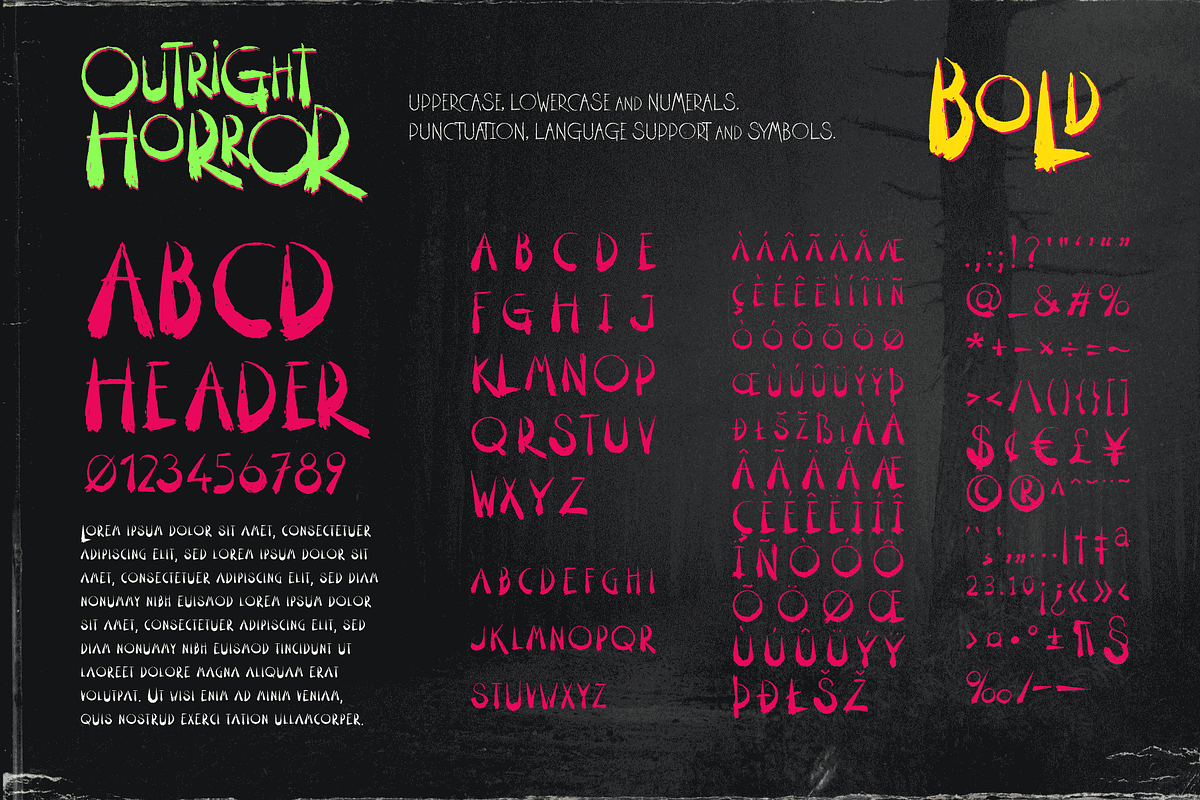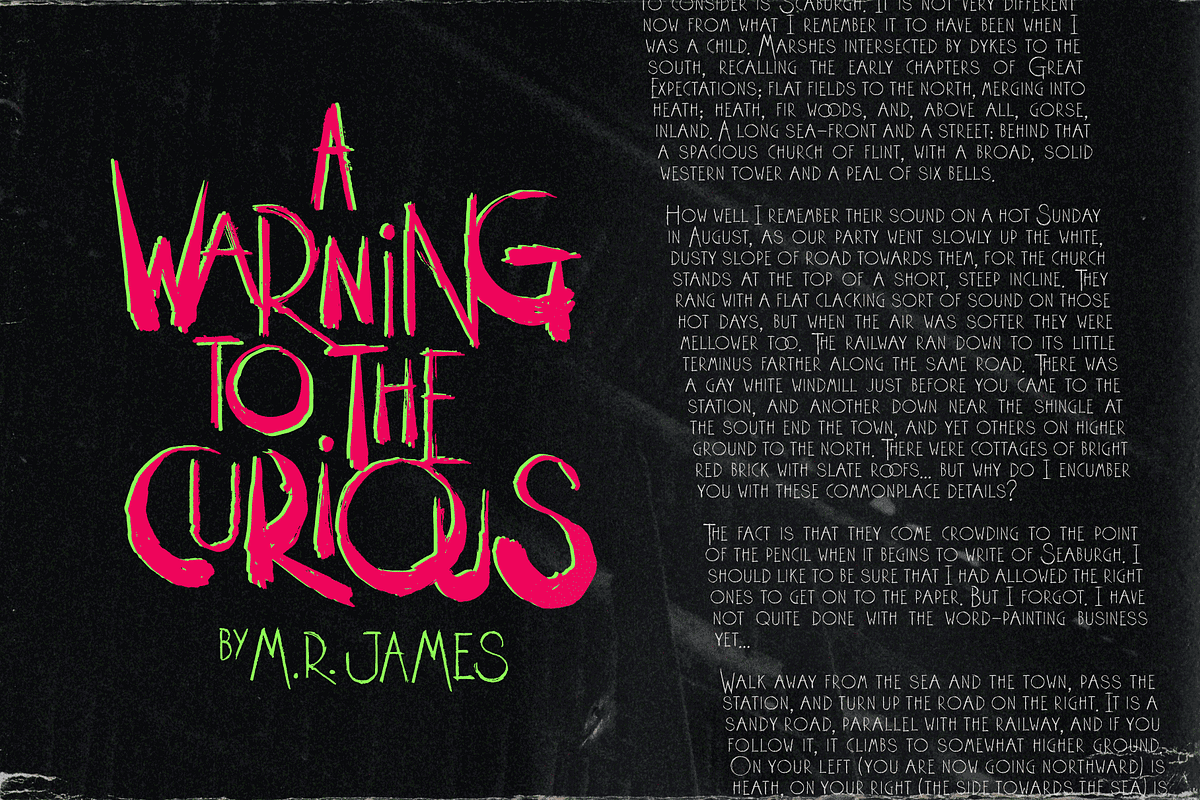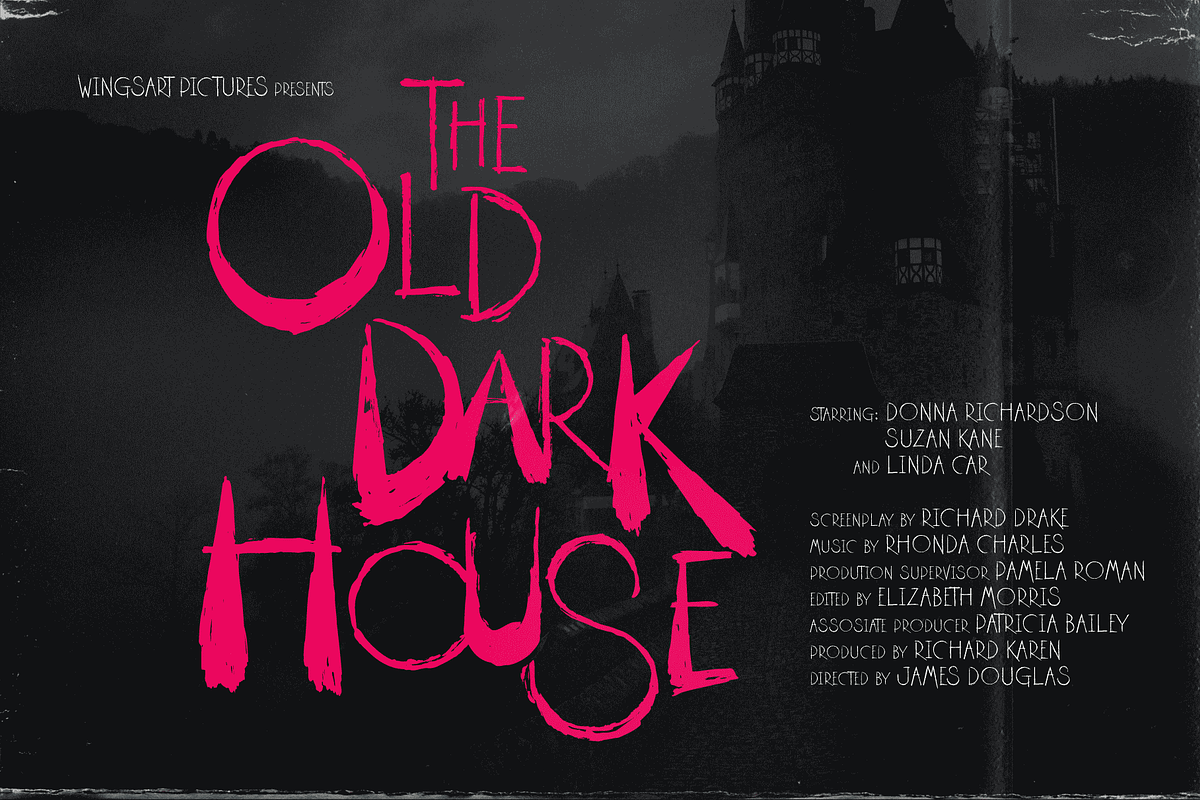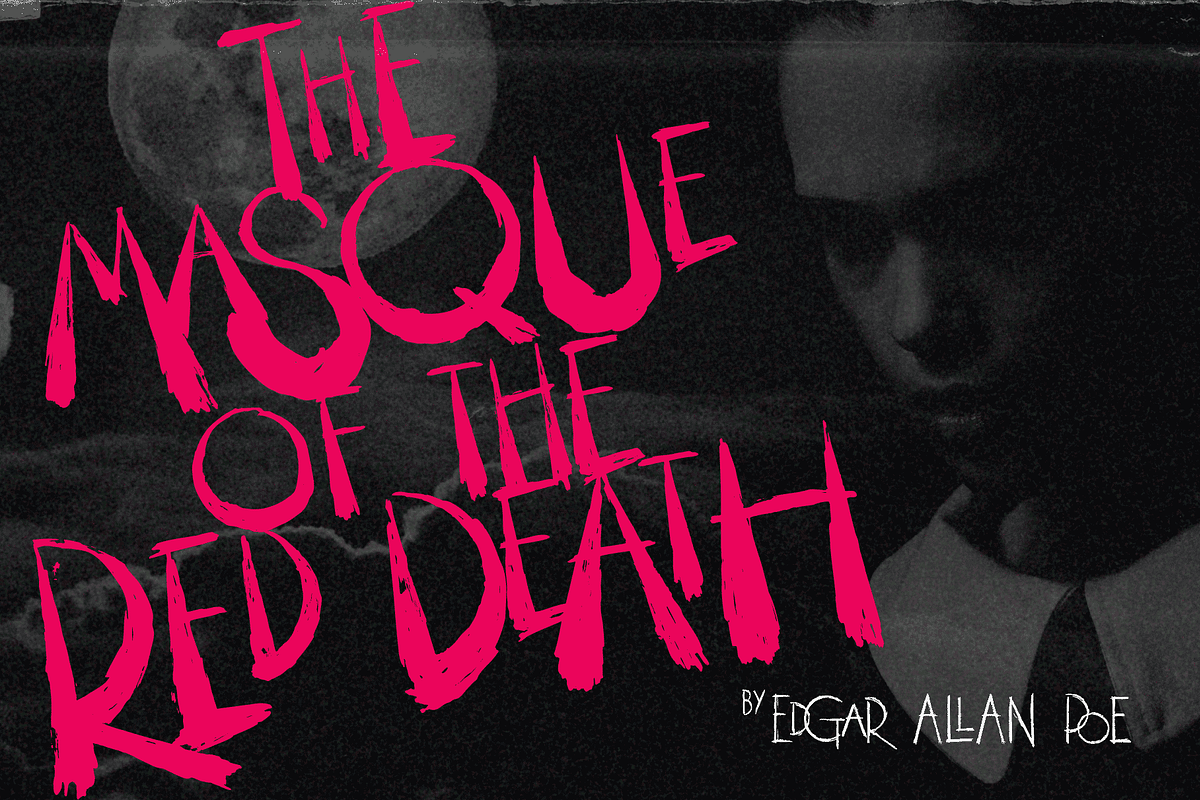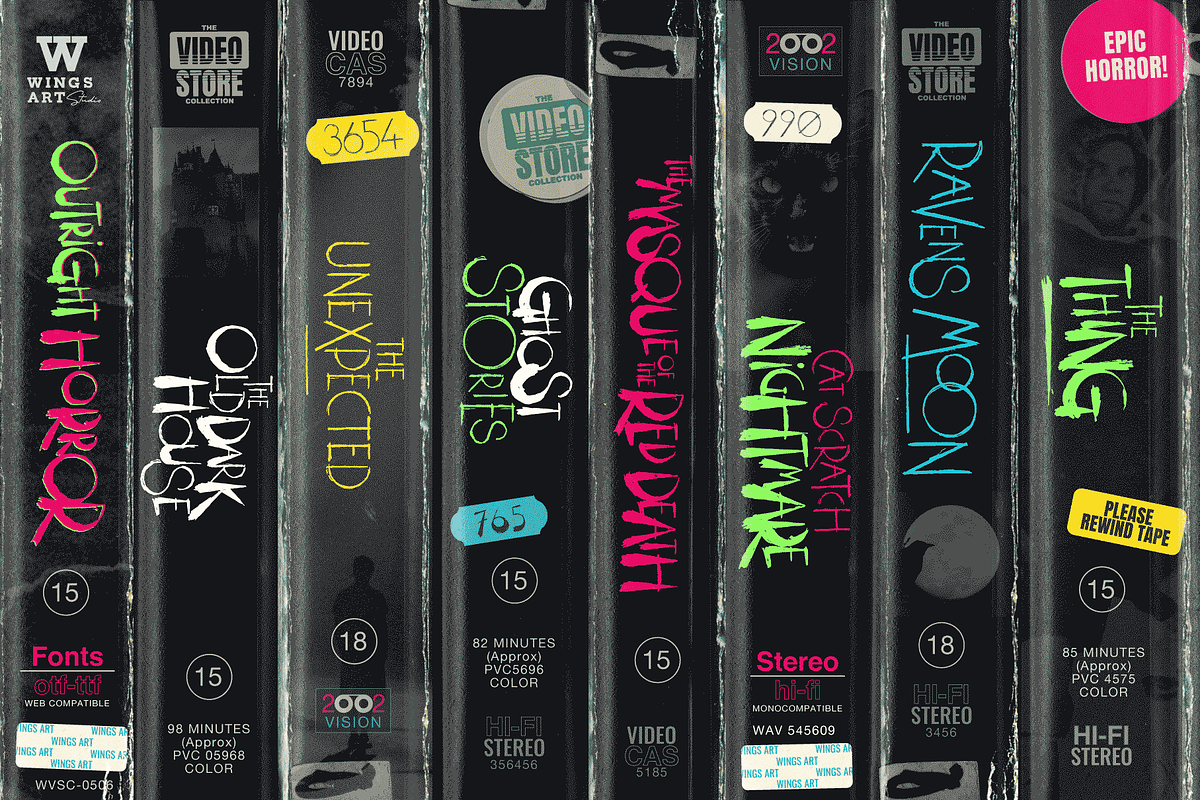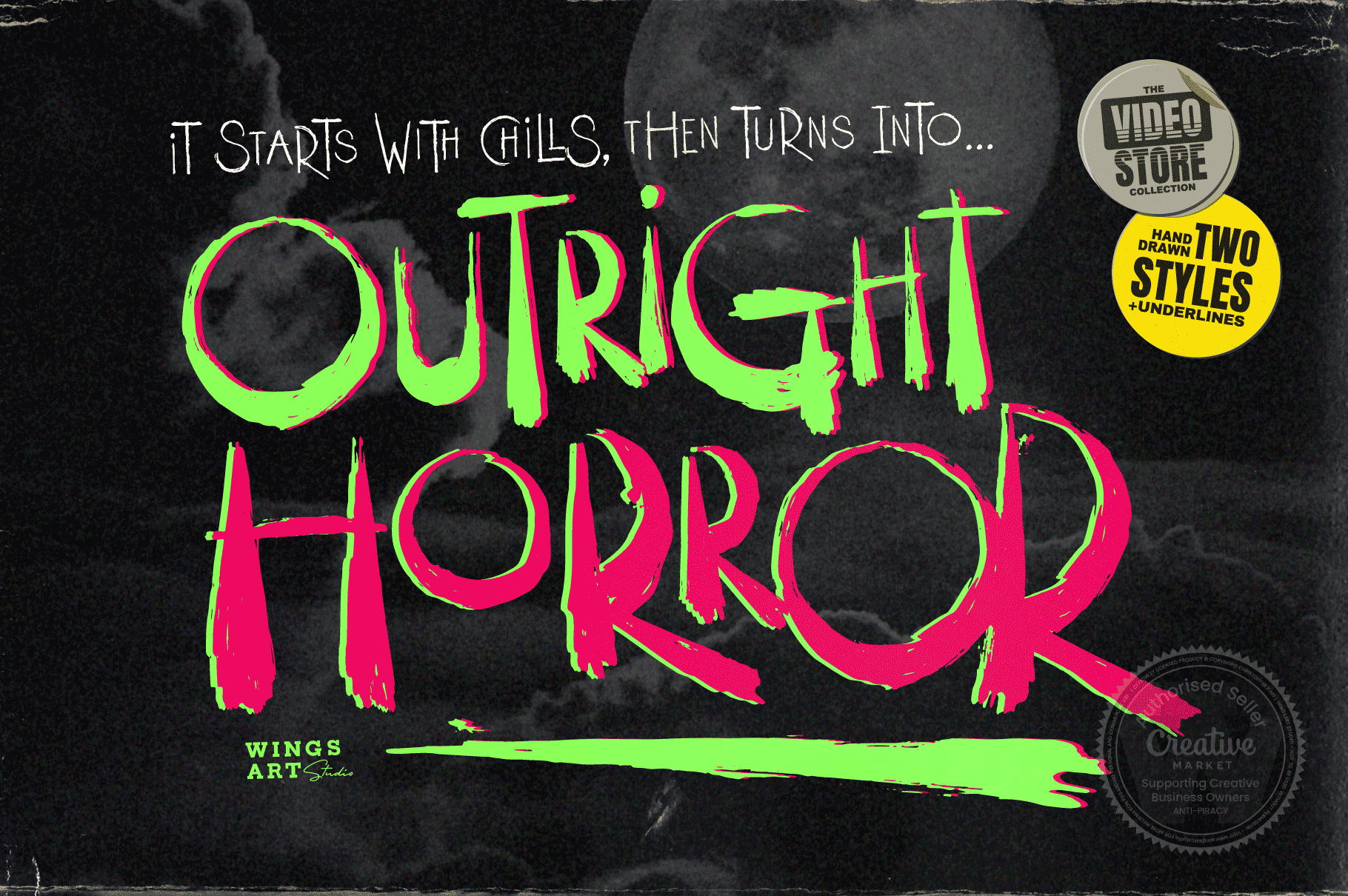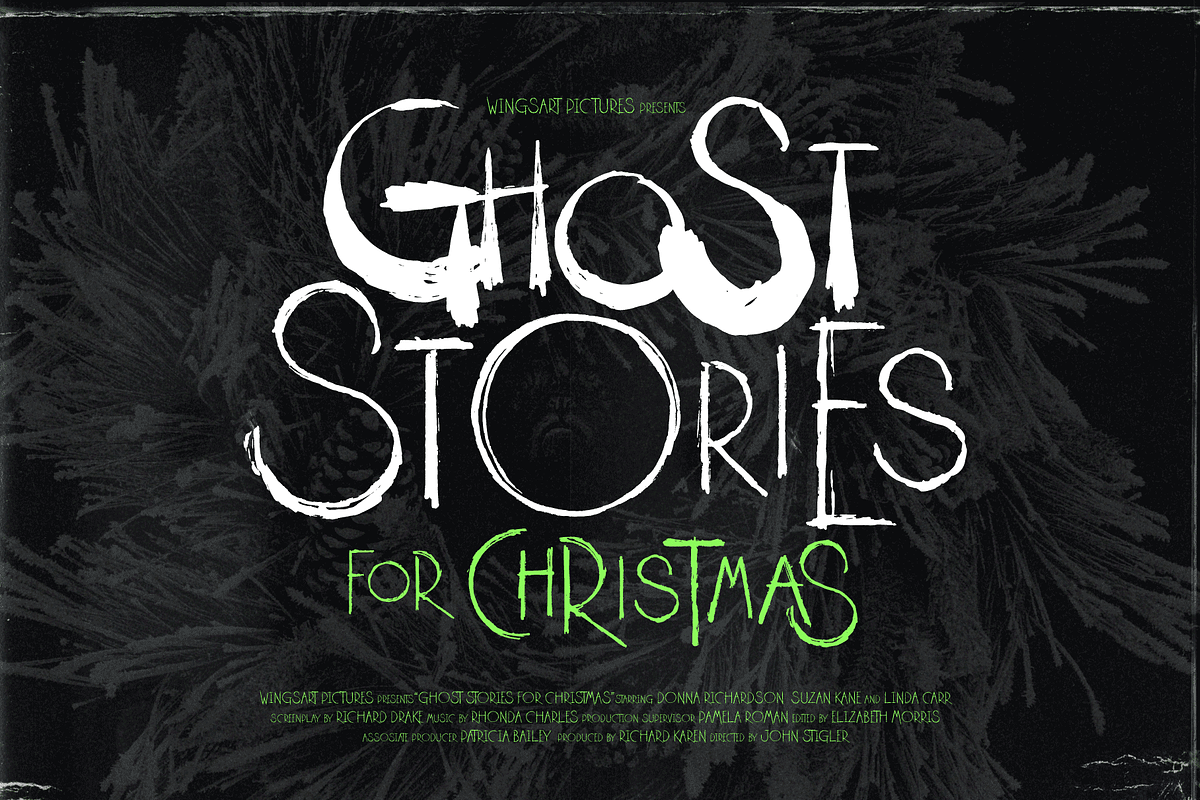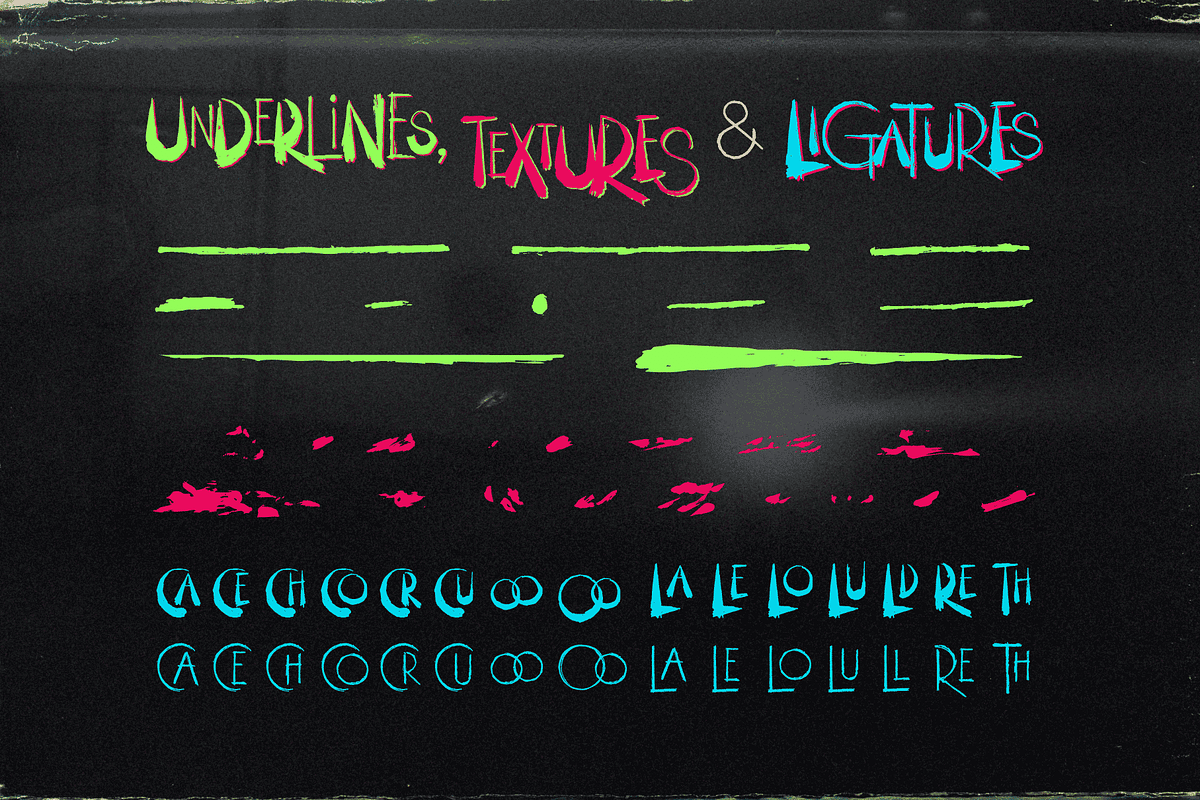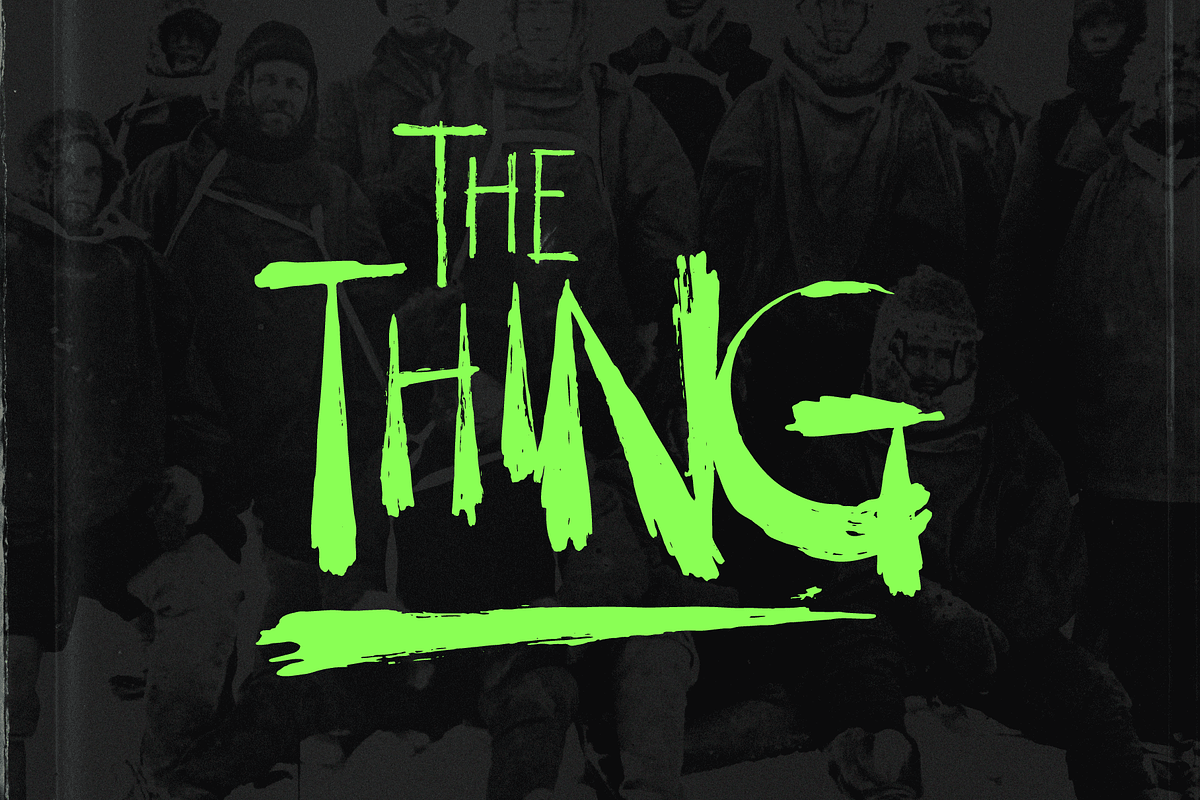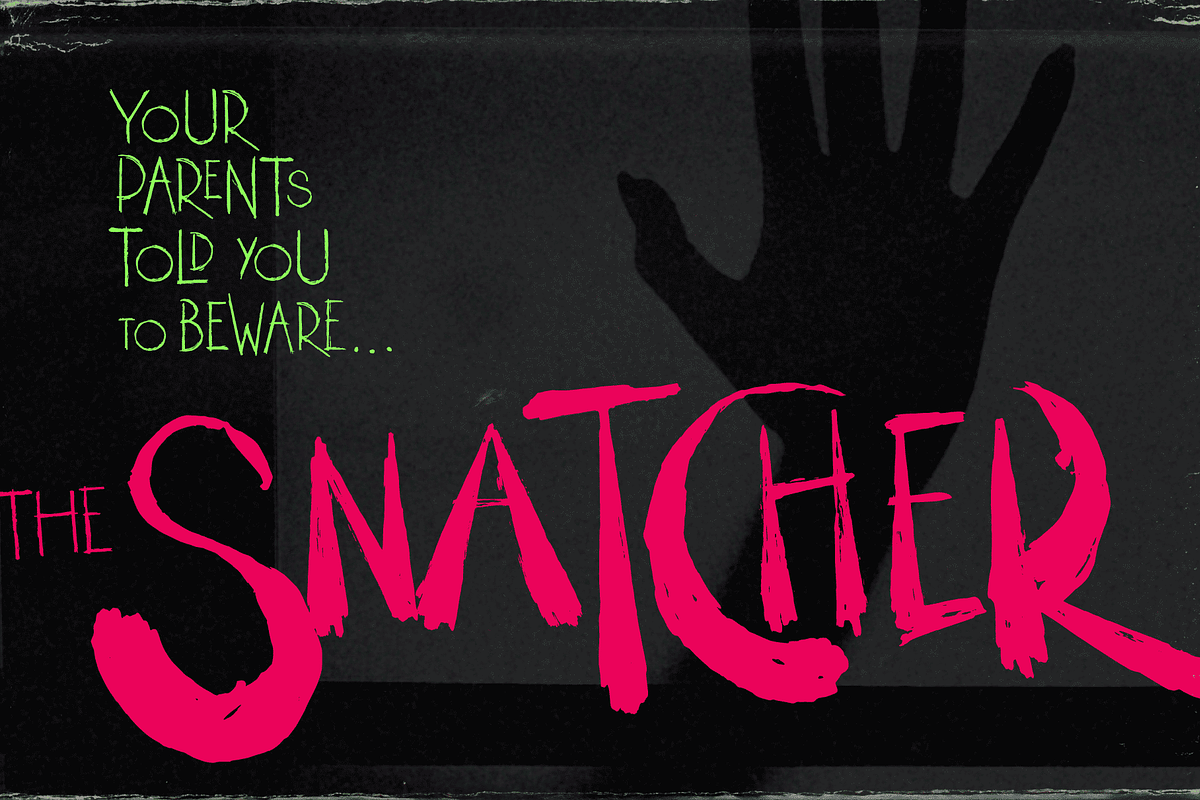
Outright Horror: Halloween Font
This new addition to my Video Store font series takes a scratched lettering style and pairs it with a wildly spontaneous brush font with horrific effect!
Given life by an unknowable hand, this font clawed into the misty midnight inspired by retro horror movies, ghost stories and unsettling fireside tales. A boiling pot of misspent youth reading Edgar Allen Poe, M.R. James and H.P. Lovecraft.
Outright Horror comes with an all-caps scratched style font with a subtly controlled Art Deco feel and a contrasting brush font that ramps up the fear! Consider it’s Regular style the skeleton that holds the Bold creeping flesh, ready for some horrific Halloween designs! It also comes with numerals, punctuation, language support, custom underlines and automatic ligatures.